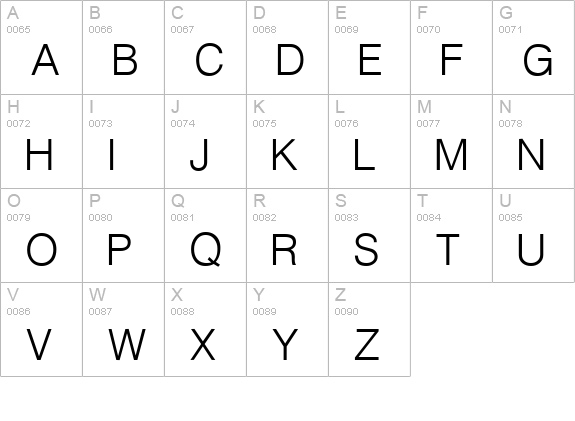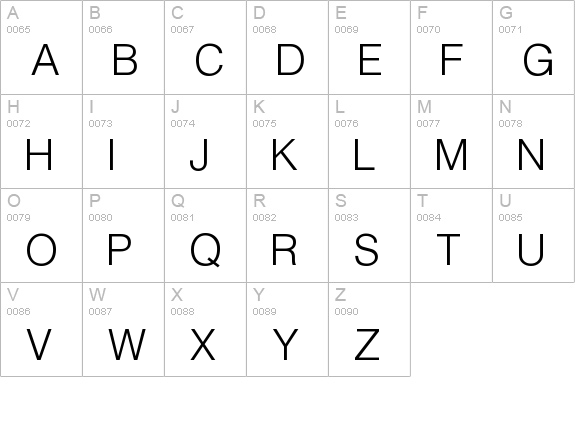
Hallmarke Regular is the standard, neutral variant in the Hallmarke typeface family \xE2\x80\x94 well suited to general body text, paragraphs, and standard typographic work.
Hallmarke Regular is a modern and versatile font that combines elegance with simplicity. With its clean lines and balanced proportions, this font exudes a sense of professionalism and sophistication. The slightly rounded edges add a touch of softness, making it welcoming and approachable. Hallmarke Regular is perfect for a wide range of design projects, including logos, branding, packaging, headlines, and more. Its readability and clarity make it suitable for both print and digital media, ensuring that your message is delivered with impact and style. One of the best features of Hallmarke Regular is that it is available for free. You can easily download it at FontsMarket.com, a reputable online platform for high-quality fonts. This means that you can enjoy the benefits of this exceptional font without any cost, making it accessible to designers of all levels. Whether you are a professional graphic designer or a hobbyist, Hallmarke Regular offers you the opportunity to elevate your designs without breaking the bank. Its timeless appeal and versatility ensure that it will remain a valuable asset in your font collection for years to come. Don't miss out on the chance to enhance your design projects with the beauty and flexibility of Hallmarke Regular. Download it for free at FontsMarket.com and unlock a world of possibilities for your creative endeavors.